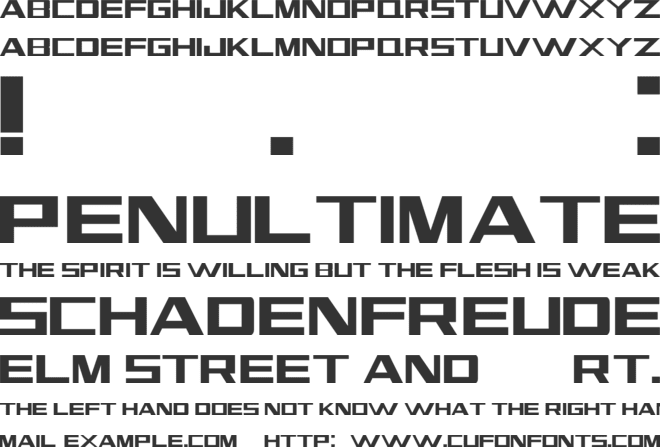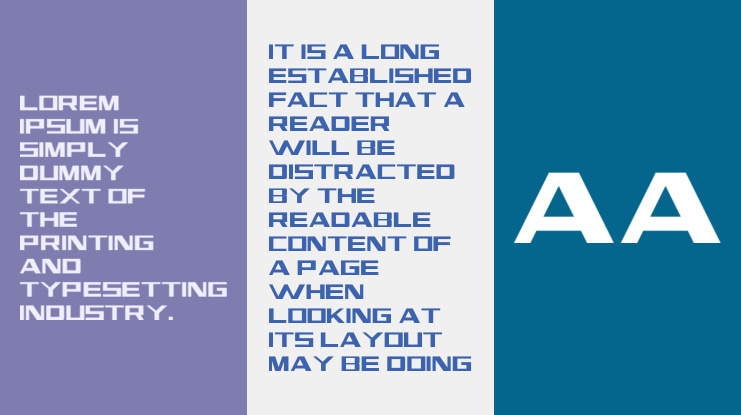
Kamen Rider Decade Back Font
The destroyer of worlds, Kamen Rider Decade, but what he made his own font? This is Kamen Rider Decade Back Ride Card font is a font for the back of Rider Cards, including the Neo Decade's Rider Card as they say a Kamen Rider's Kamen Ride, Form Ride, & Attack Ride. Tsukasa just passing through the fonts of Kamen Rider. Tsukasa or Decade says "If you wish you want to use this font, this font is free for personal use, or if it's commercial use, i will destroy you!"